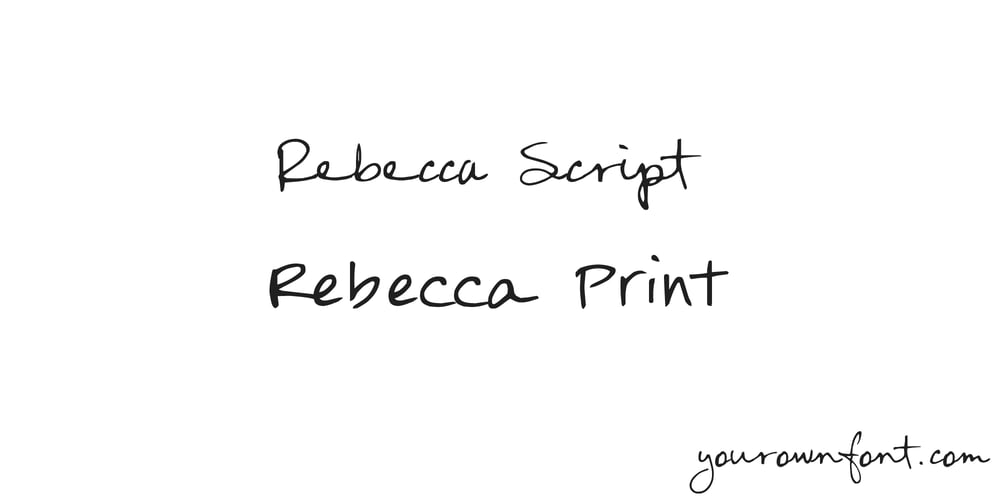
Rebecca YOFF Font Family was designed by Ellinor Maria Rapp and published by YOFF. Rebecca YOFF contains 2 styles and family package options. Rebecca bundle is two fonts, one print and one script. You’ll get both in one package. Both fonts are updated with smoother curves and support for more languages. Enjoy this bundle of beautiful handwriting fonts!